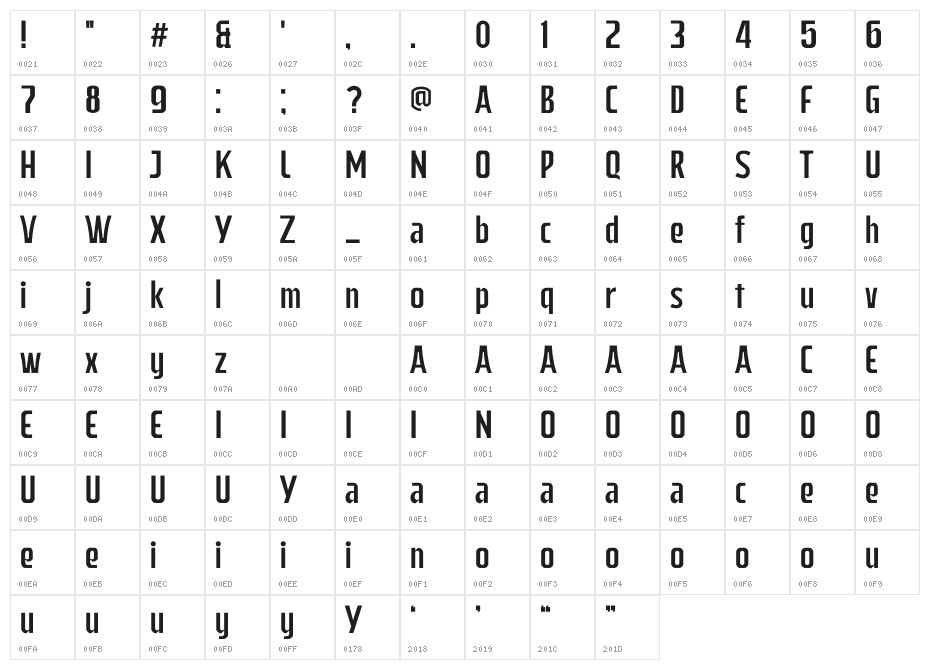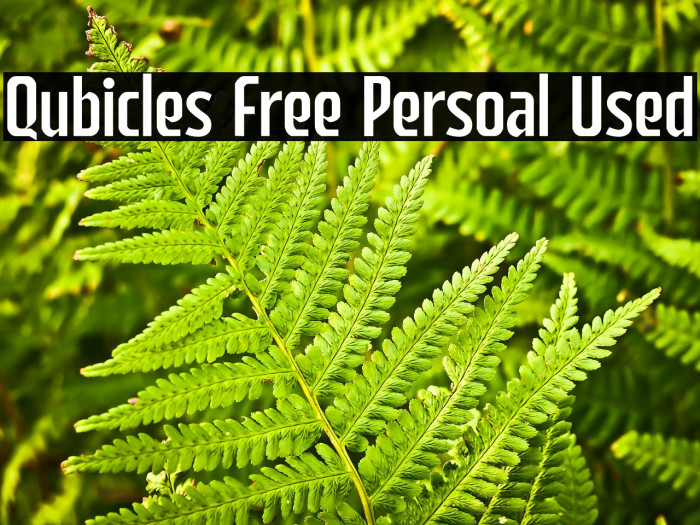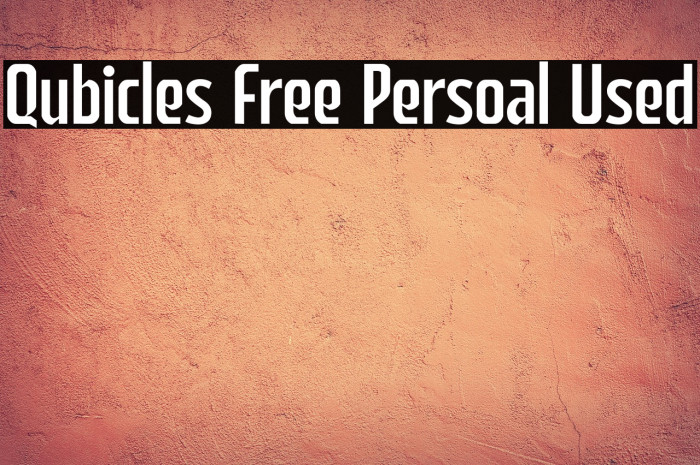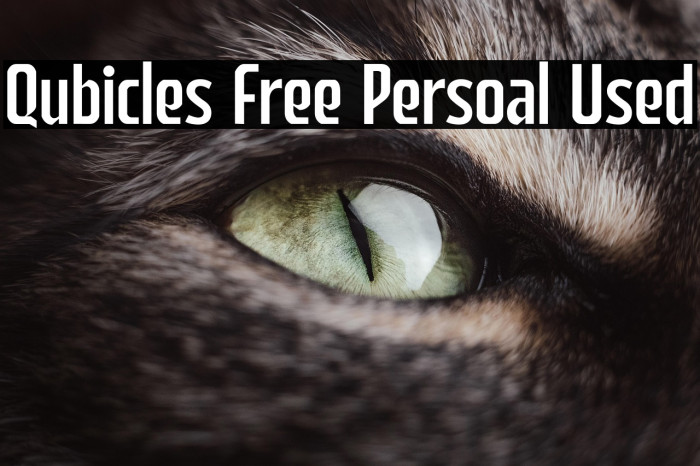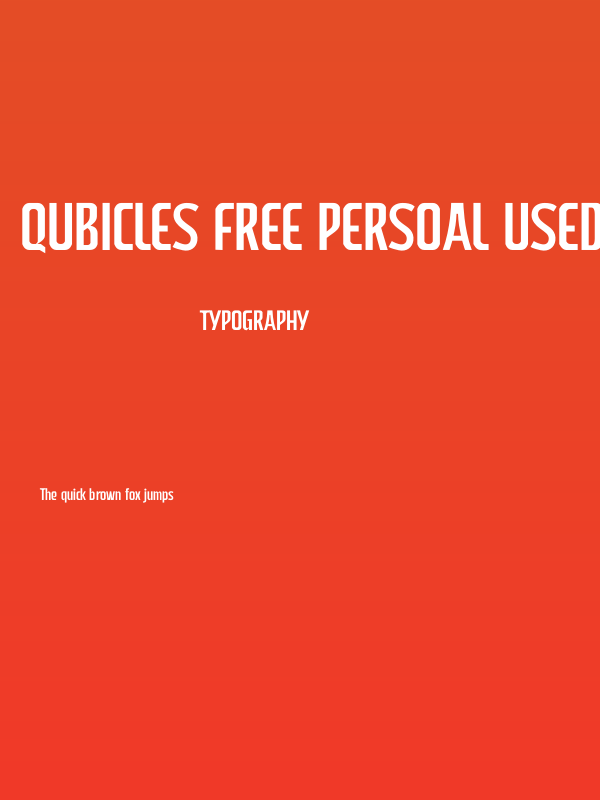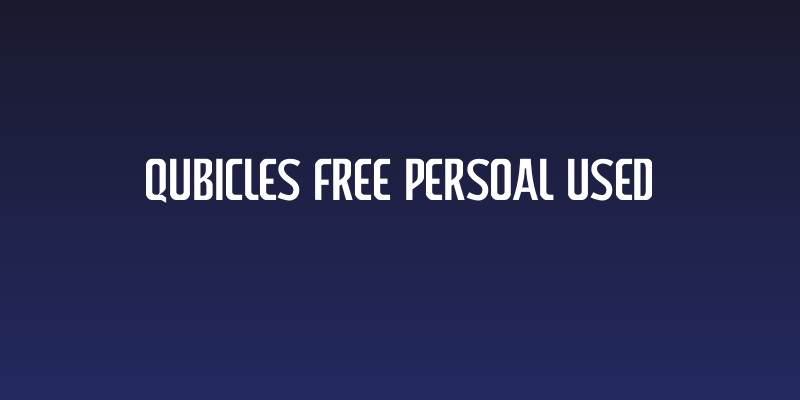
Qubicles Free Persoal Used Font
Qubicles Free Persoal Used Description
A bold, geometric sans-serif font with sharp angles and a modern aesthetic. The characters are tall and narrow, giving a condensed appearance.
| Proposed Projects | Posters, headlines, branding, and modern design projects. |